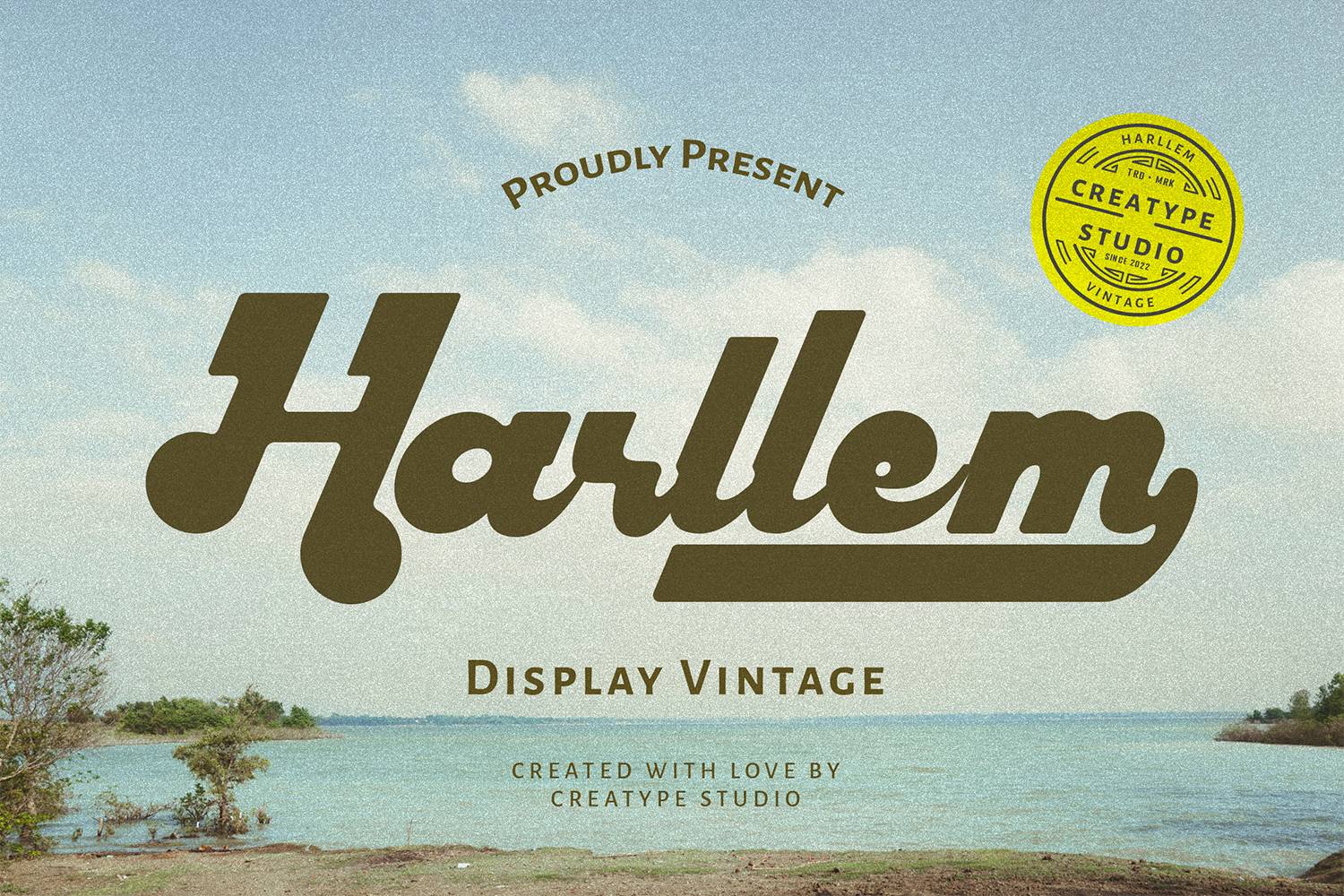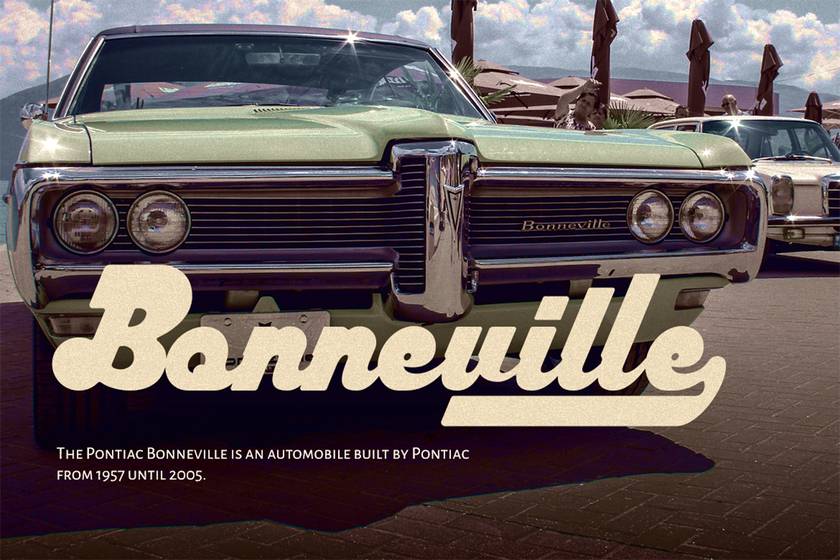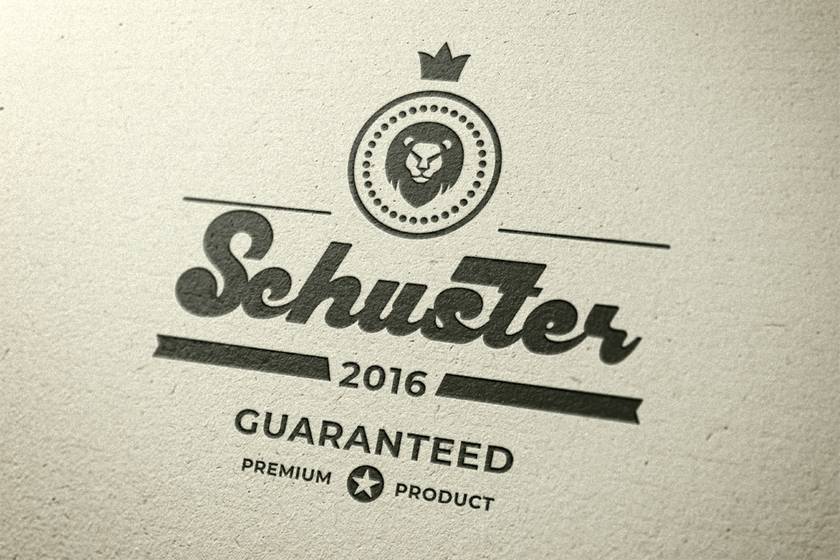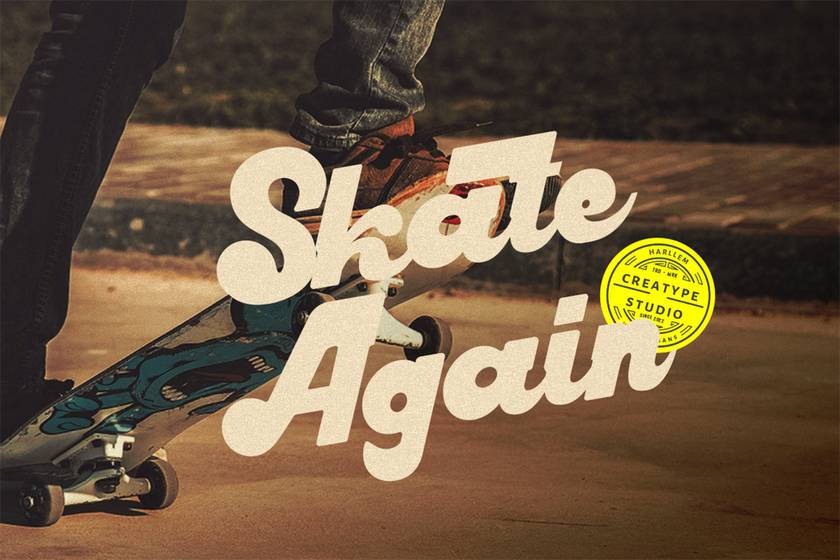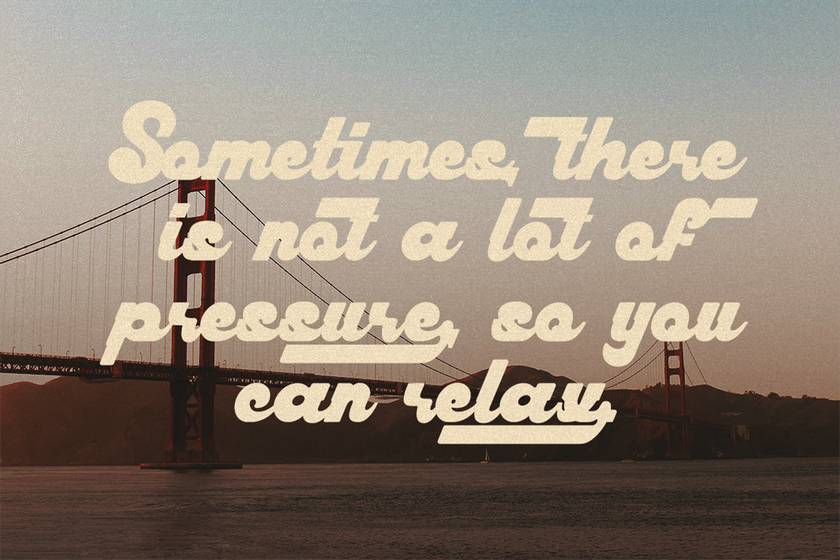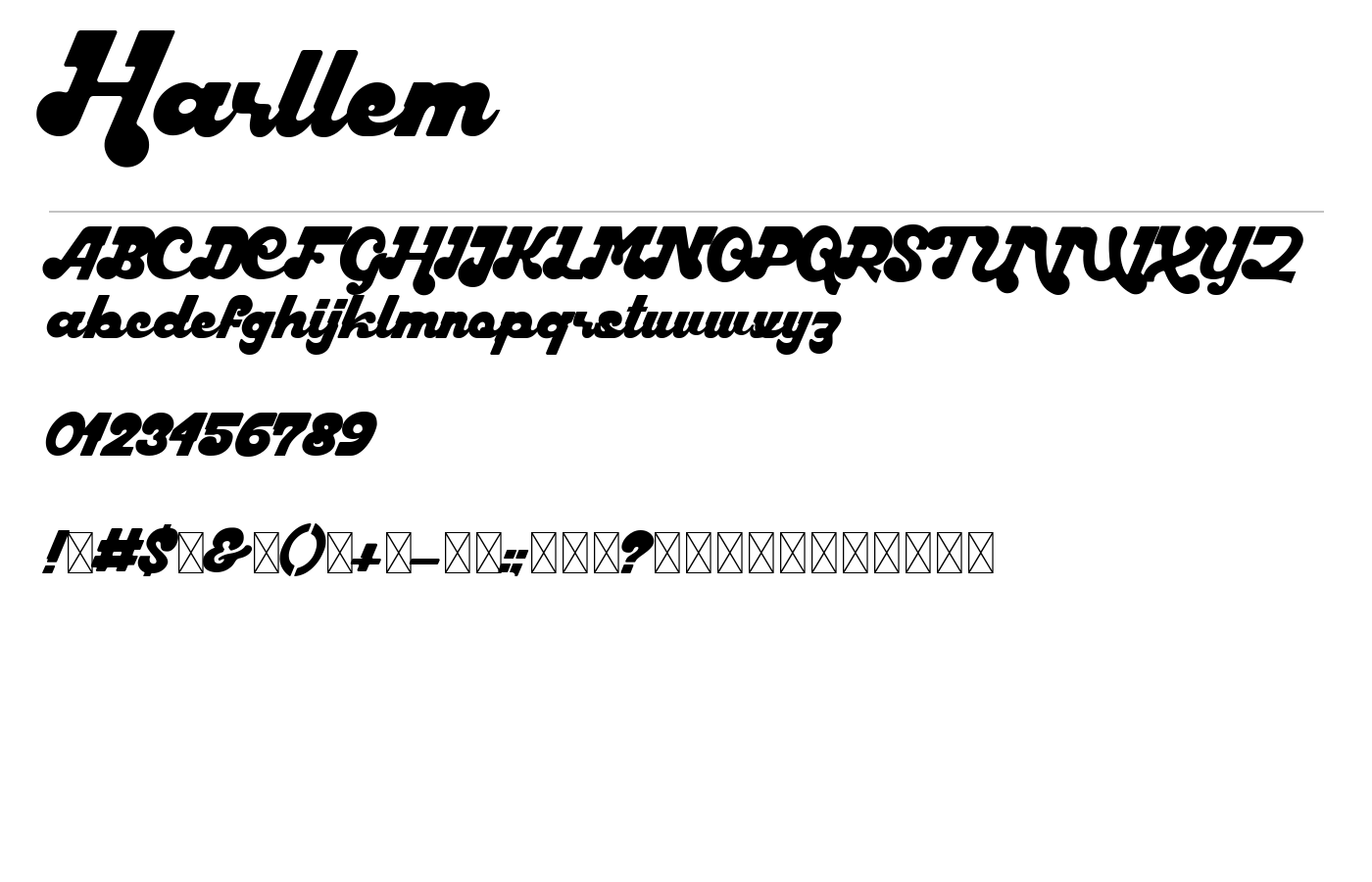
Harllem is a bold, condensed script font featuring thick strokes and rounded edges that give it a dynamic, retro-inspired feel. Its distinctive connected letterforms and high contrast make it ideal for eye-catching logos, headlines, and branding that seek to convey energy and personality. This font works best in display settings where its unique style can shine, such as posters, packaging, and vintage-themed designs.
Harllem Font
About Harllem Font